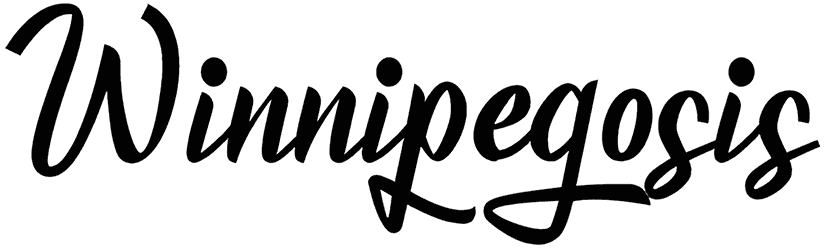
Winnipegosis Font
Winnipegosis is a beautiful script font that can be easily matched to an incredibly wide range of graphic projects such as social media posts, flyers, menus, product packaging, and logos. Since it has a sophisticated flow that is combined with a smooth texture, it can add a sense of personalization, dynamic, drama, and courage to your artwork.
Designed by: Kong Font